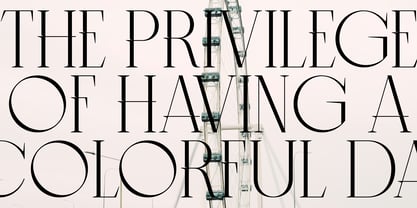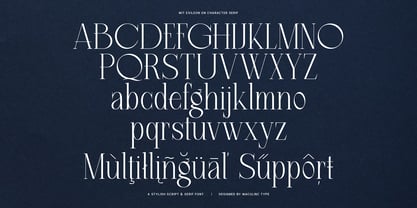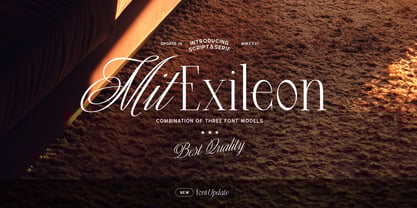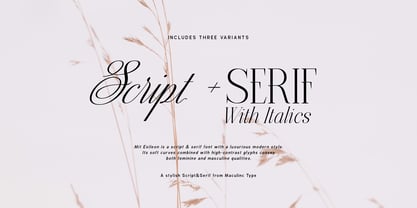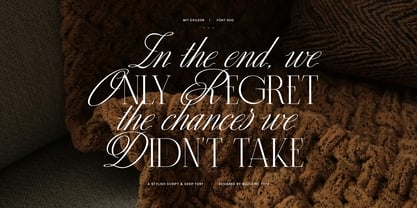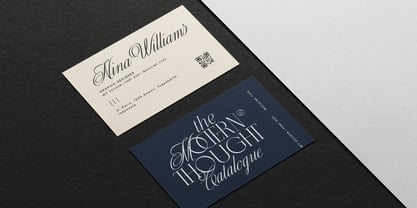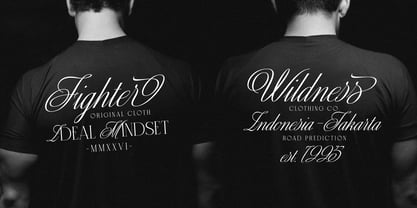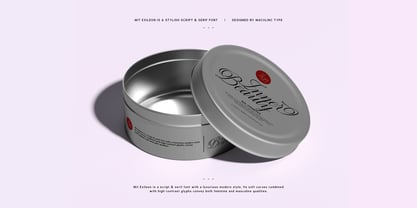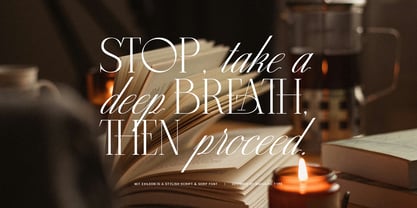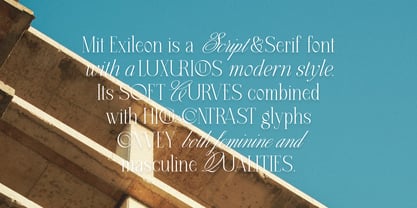
MIT Exileon
by Maculinc
The MIT Exileon Font Family was designed by Lukmanul Khikmatullah and published by Maculinc. MIT Exileon contains 3 styles and family package options.
Font Update: The Exileon has been renamed MIT Exielon and slightly tidied up for balance and refinement. MIT Exileon is a Script&Serif Font with a modern style. Soft curves are combined with high contrast glyphs, conveying both feminine and masculine qualities. This font consists of 3 Regular Serif Fonts, Italic Serif and Script, with many unique ligatures provided. Great in layout design for quotes or body copy, best used as a display for headings, logos, branding, magazines, product packaging, and invitations. Mix between Script and Serif to create a unique and very beautiful look, and add italics to complete the sentence you want. 2 Serif Fonts and 1 Script Font Multilingual Support Thank you for visiting us and don't forget to follow us : Behance ( https://www.behance.net/maculinc ) Dribbble ( https://dribbble.com/Maculinc ) Instagram ( https://www.instagram.com/maculinc/ )